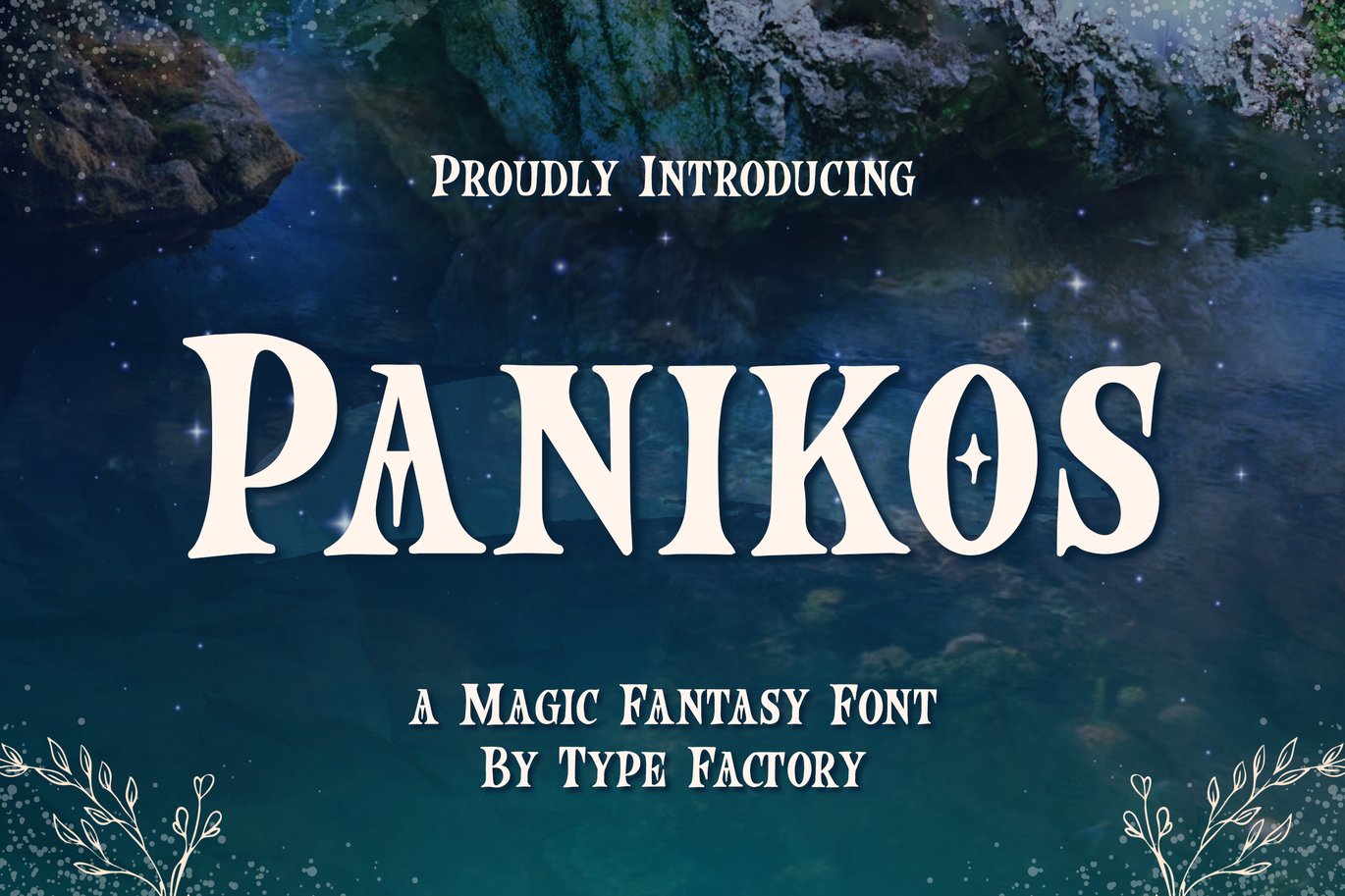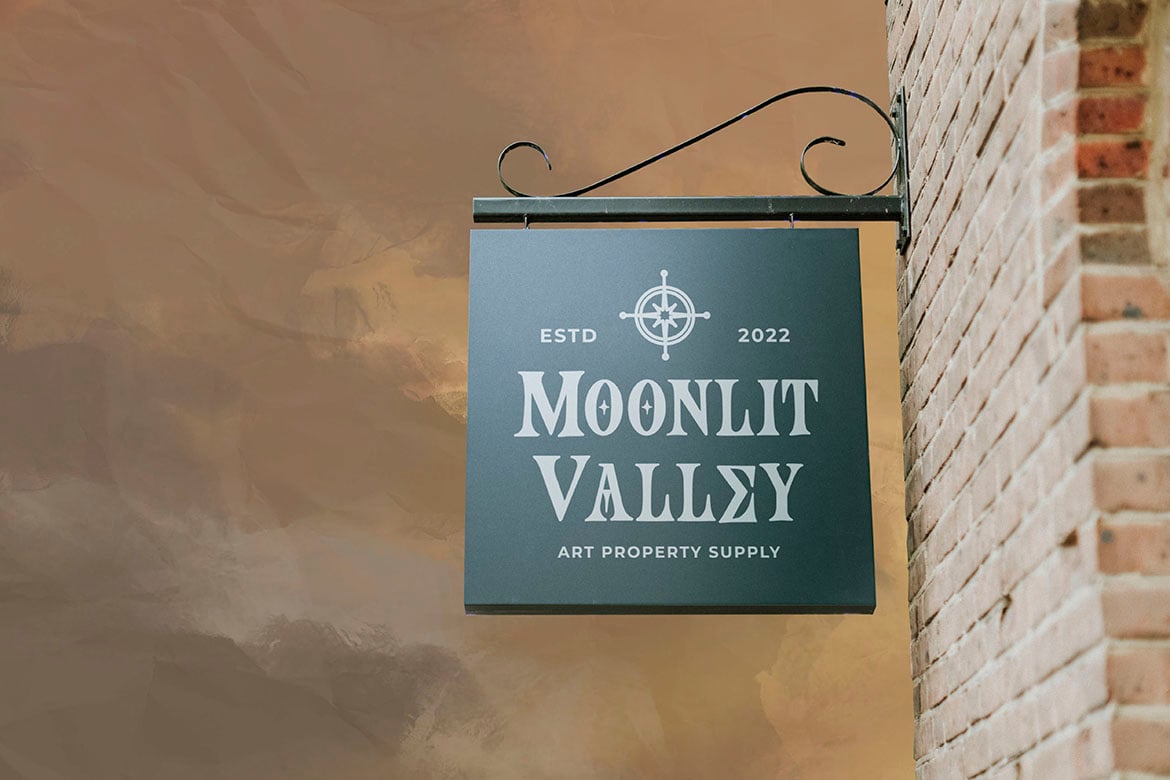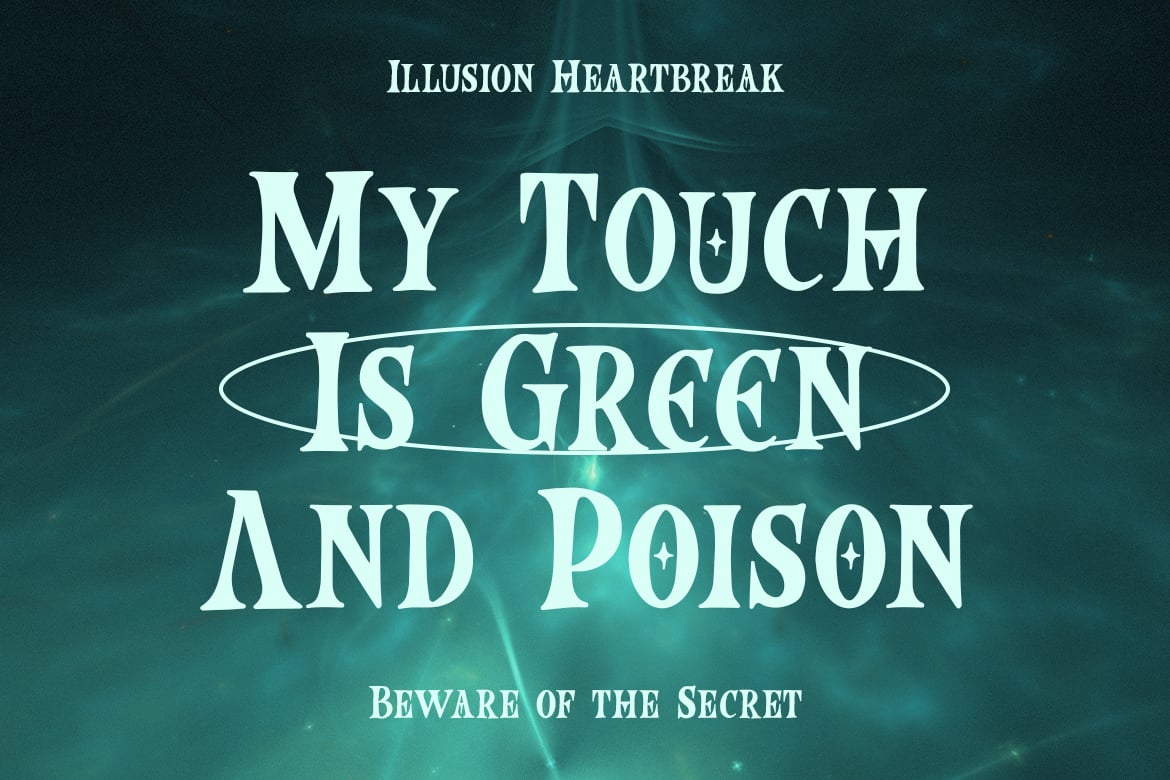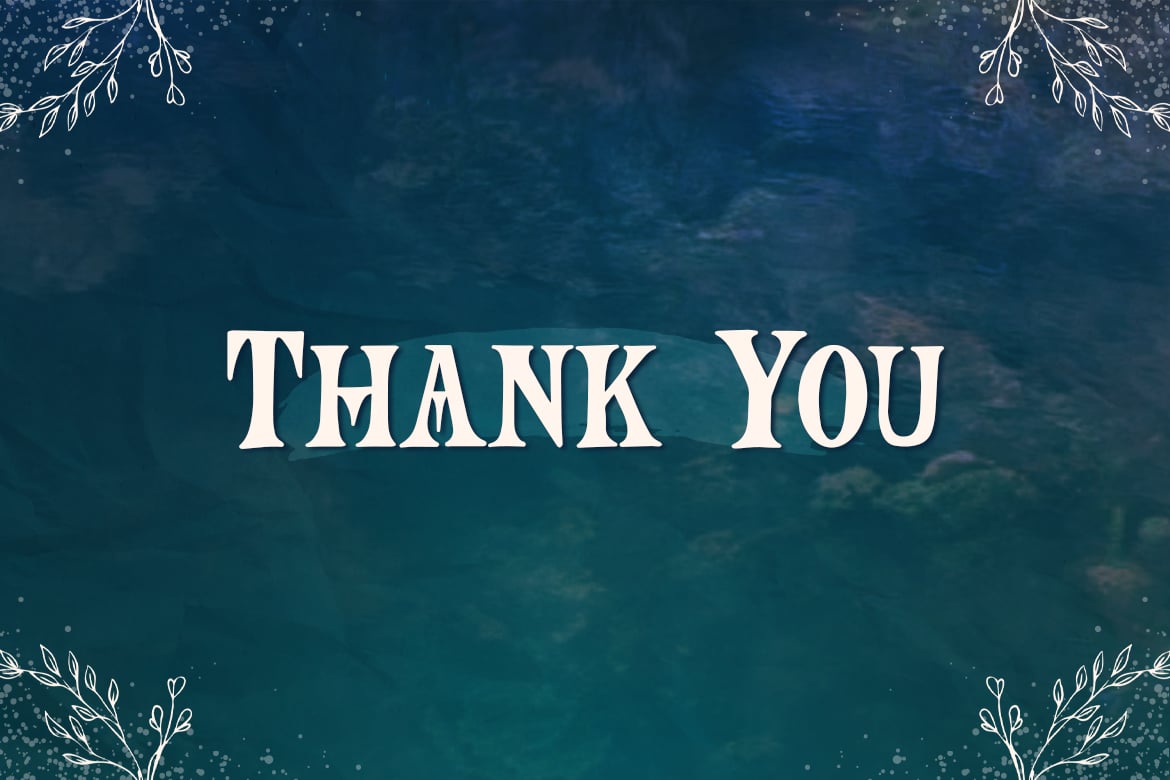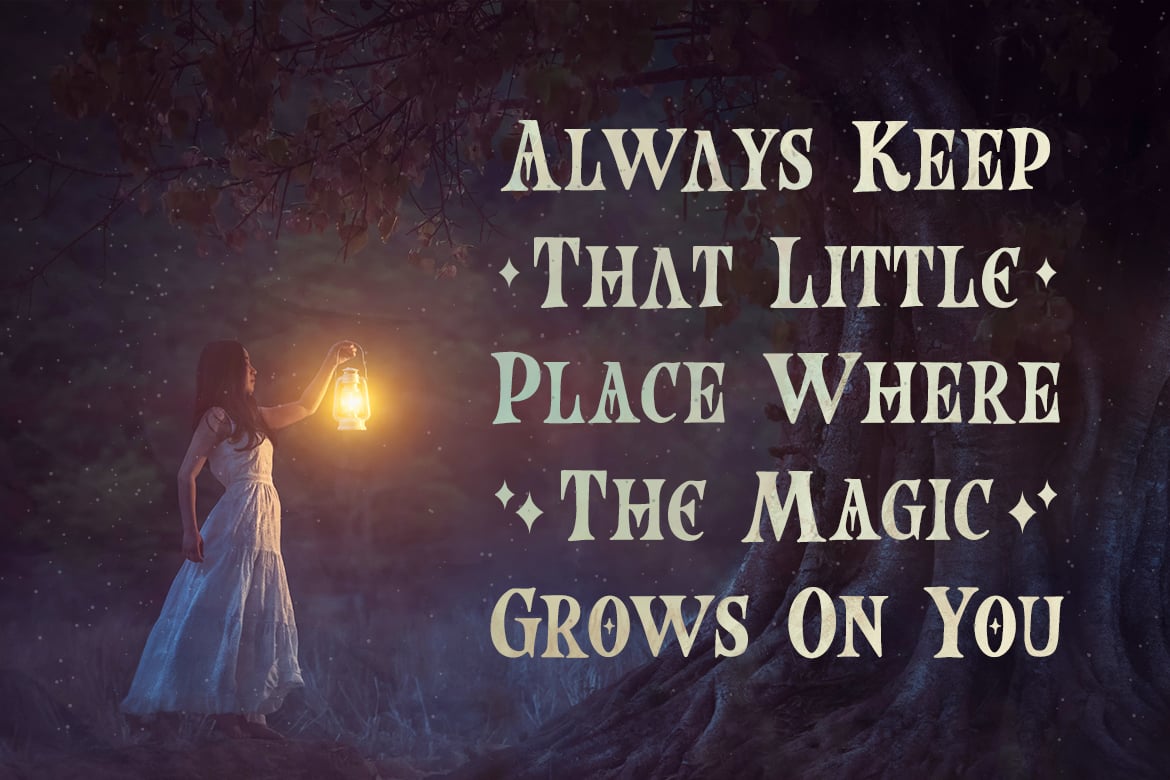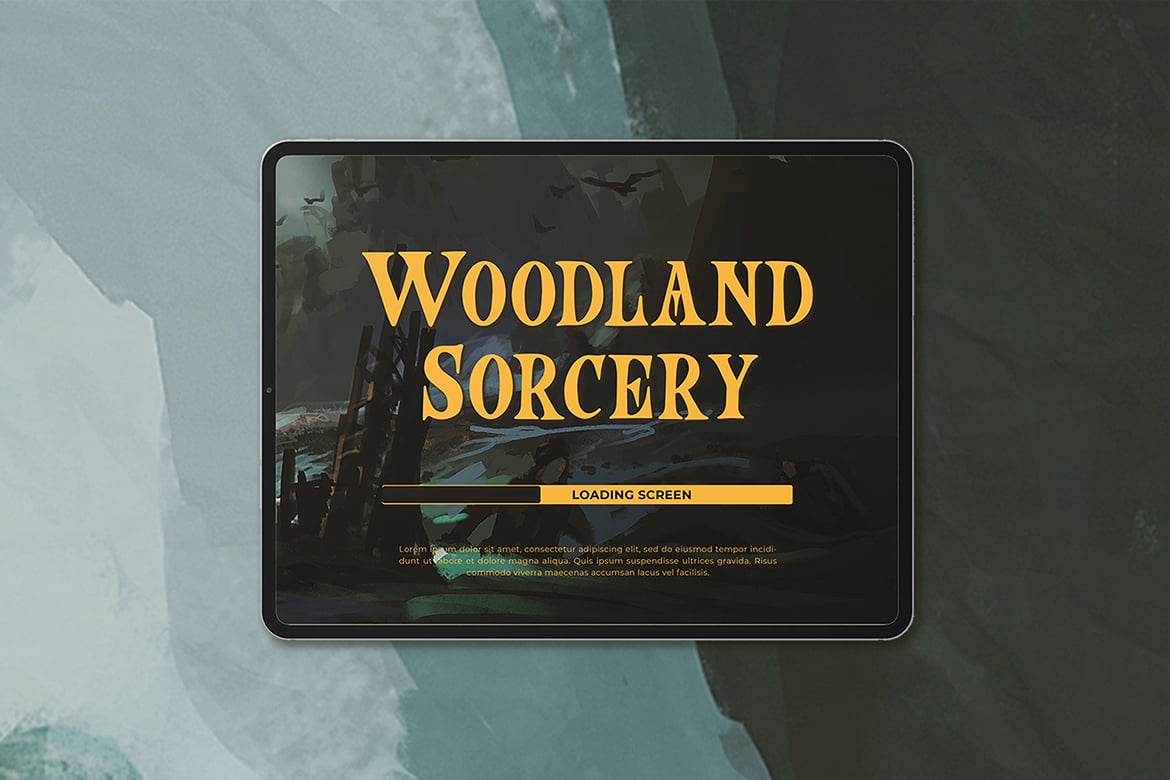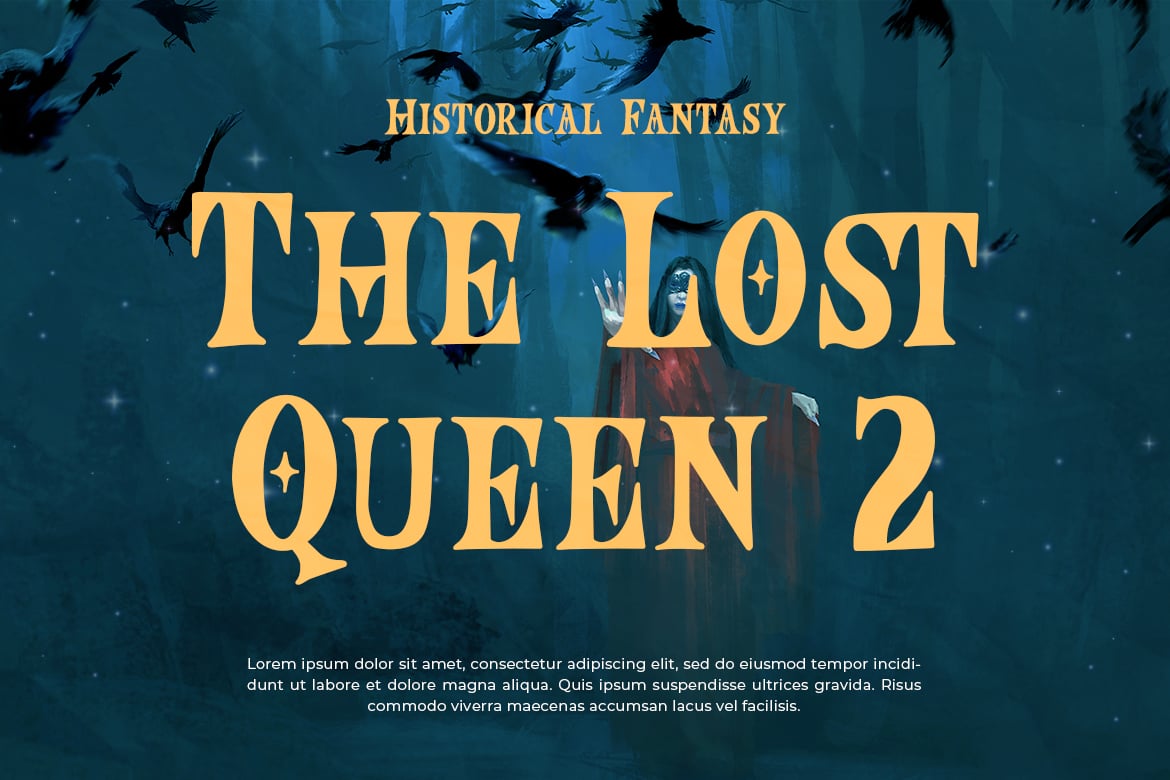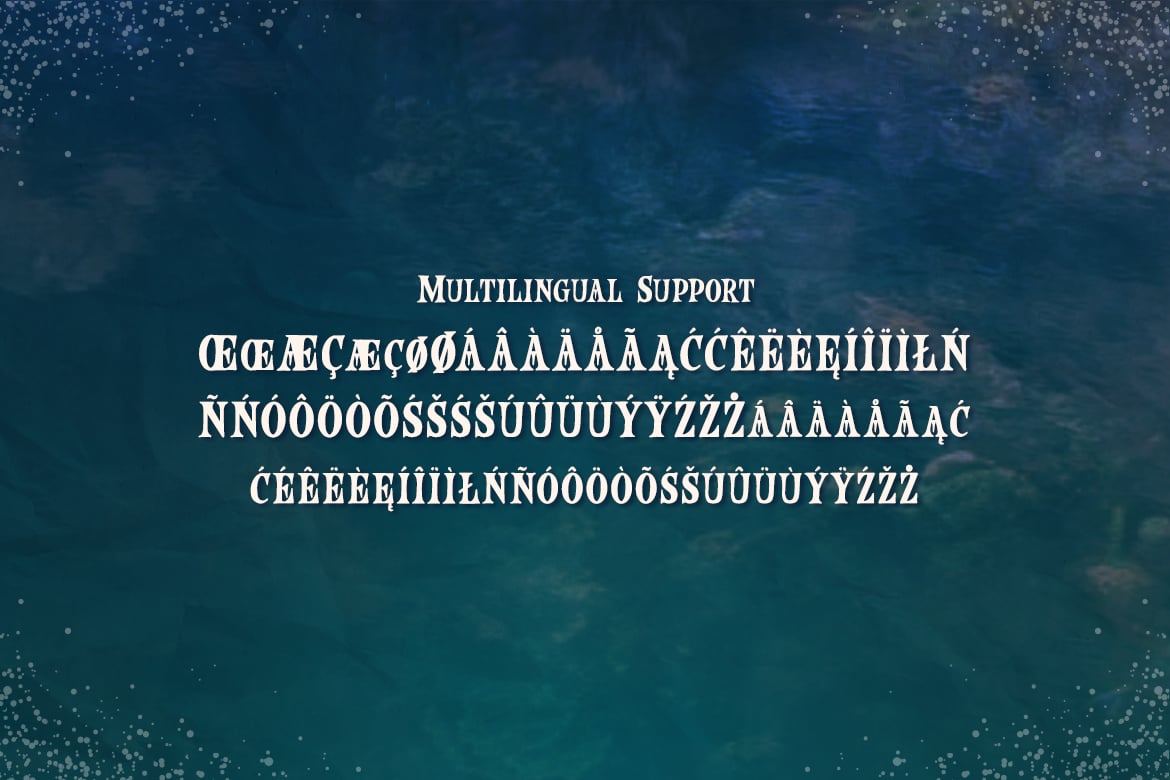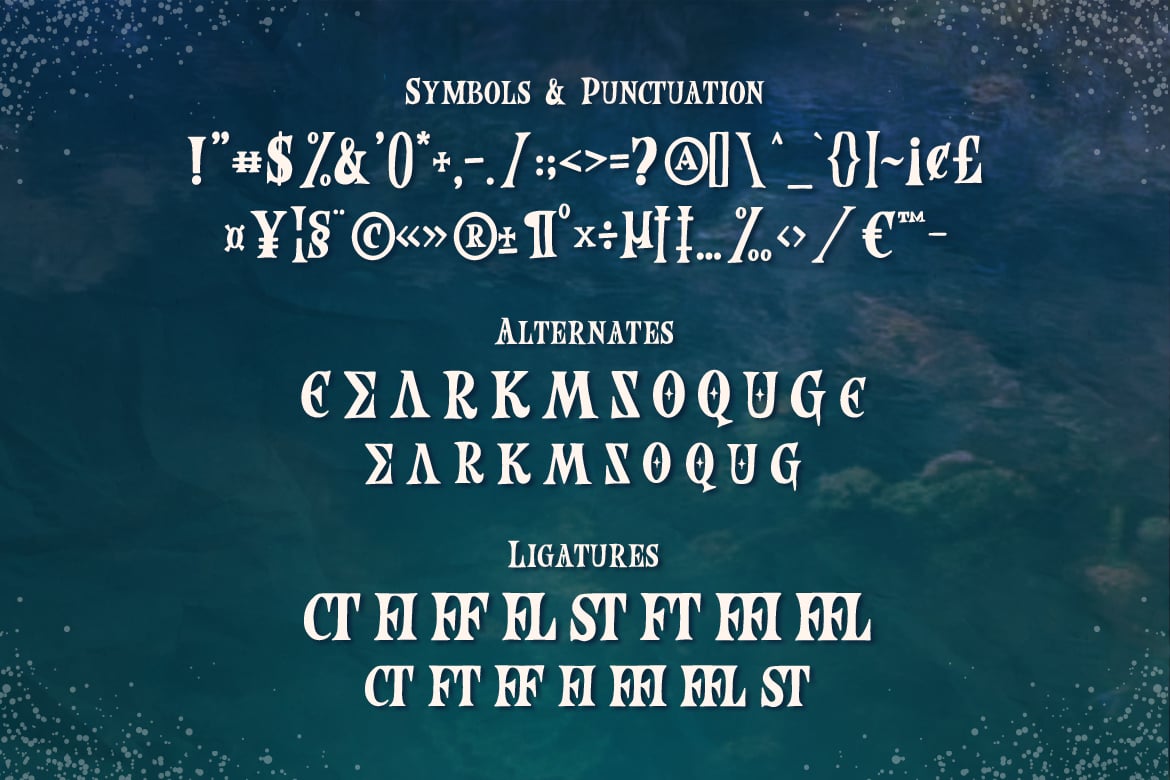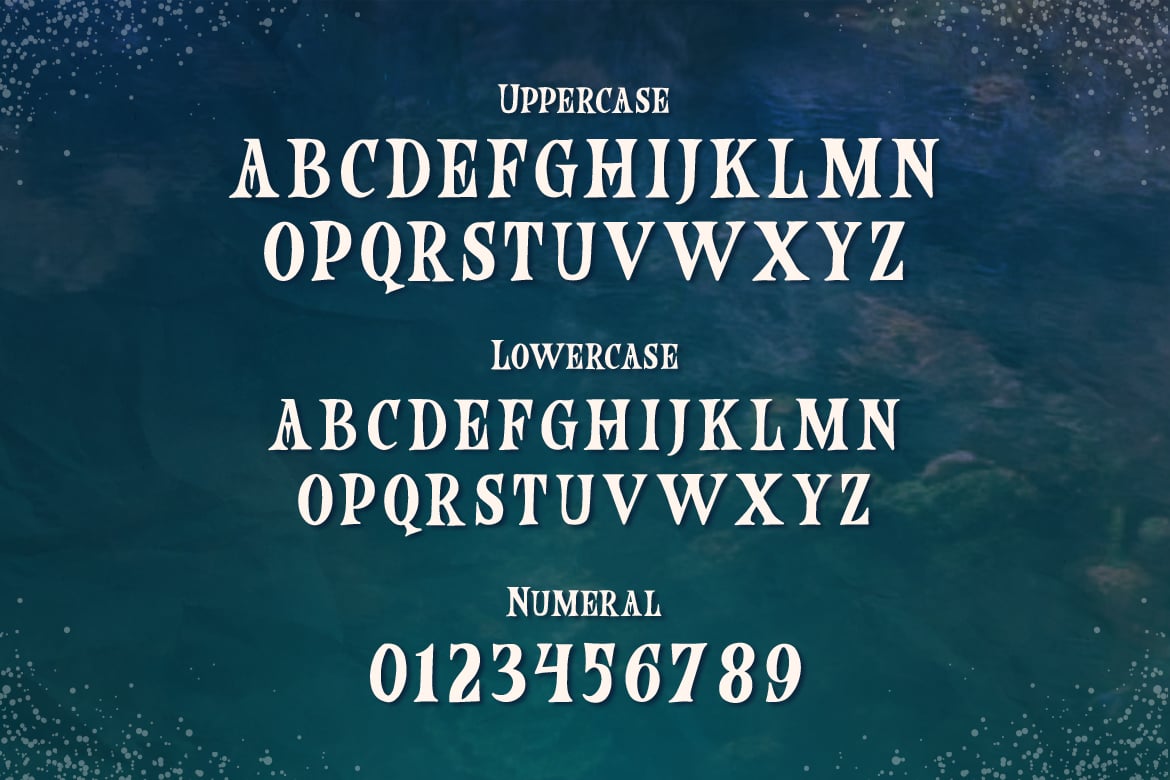
Panikos – Magic Fantasy Font
Panikos is a fantasy font that will immediately take you into a fairytale land.
Magic and a bit spooky, this serif font will be the ideal choice for any Halloween or party design you wish to develop